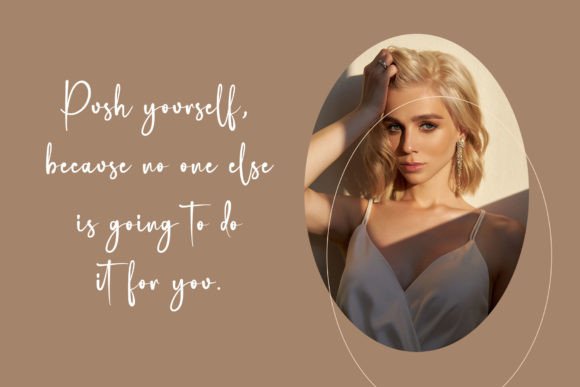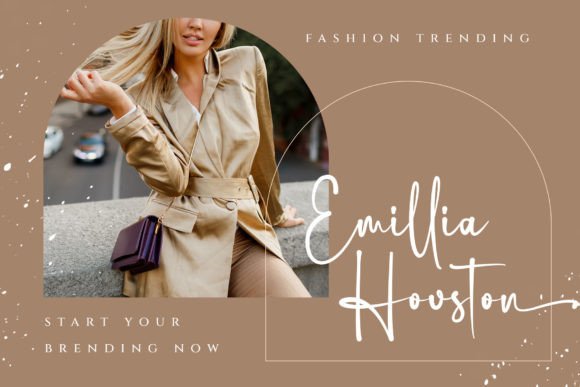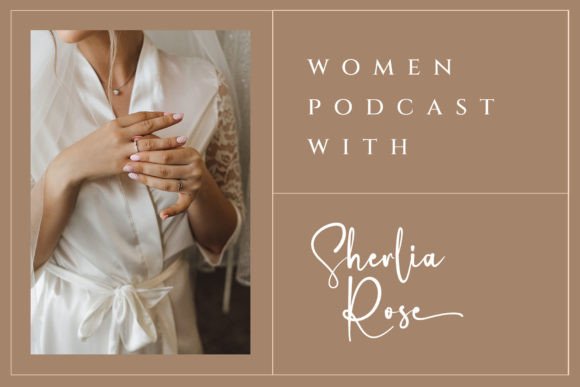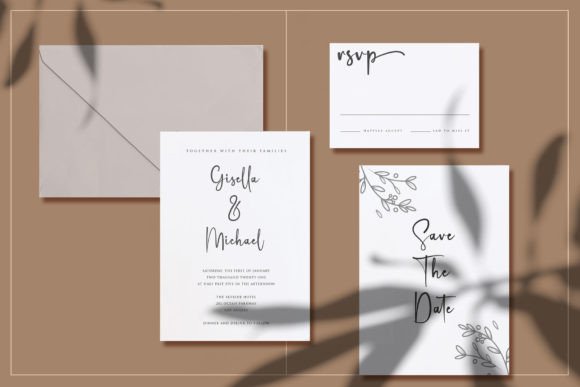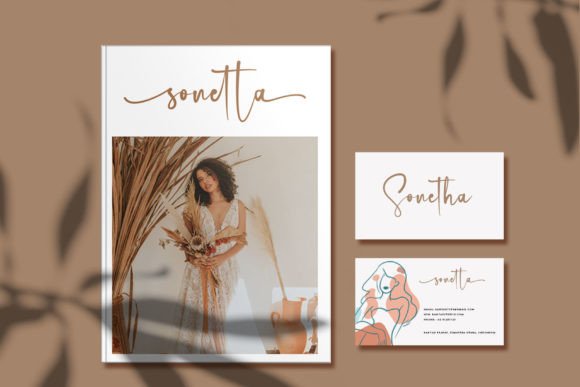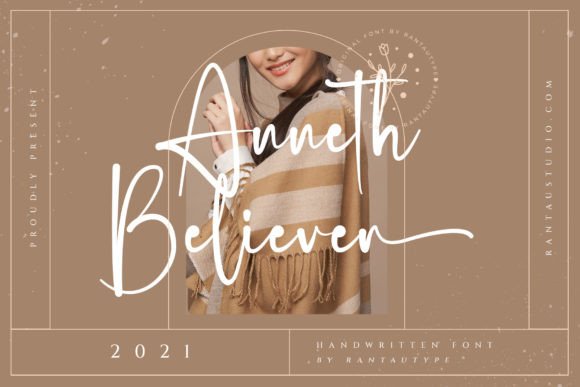
The Anneth Believer Font: A Designer’s New Best Friend
I’ll never forget the time I was working on a project for a client who wanted a custom greeting card design. I had spent hours brainstorming ideas, but something was missing – the perfect font. That’s when I stumbled upon the Anneth Believer font, and it completely transformed my design. In this article, I’ll share my experience with this unique handwritten font, its features, and how to make the most of it in various design platforms.
An Honest Review of Anneth Believer
- ✨ Unique and versatile handwritten style that’s perfect for various design projects
- 💫 Works beautifully for crafting, digital designing, presentations, and greeting card making
- 🎨 Incredibly versatile style that can be used for both personal and professional projects
While Anneth Believer is an amazing font, there are a few things to keep in mind:
- ⚠️ Some users might find the font a bit too ornate for certain projects
- 🤔 Limited use of uppercase letters, but the font makes up for it with its beautiful swashes and glyphs
The Backstory of Anneth Believer
The Anneth Believer font was designed with the intention of creating a unique, handwritten font that would inspire creativity and versatility. The designer aimed to create a font that would be perfect for various design projects, from crafting to digital designing. With its PUA encoding and wide range of glyphs and swashes, Anneth Believer has become a favorite among designers and crafters alike.
| Author | RantauType |